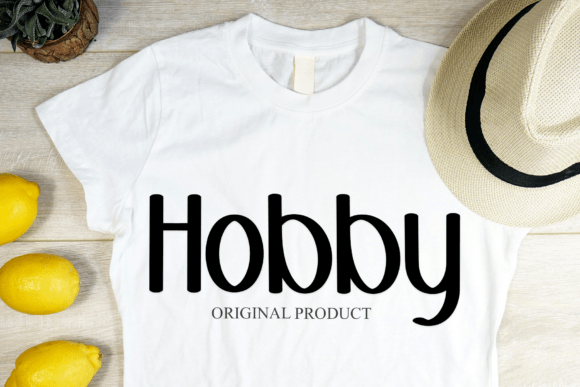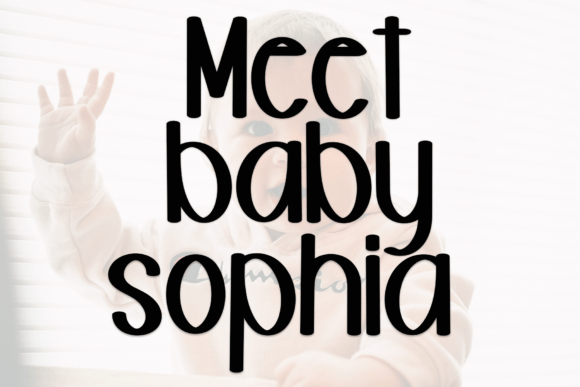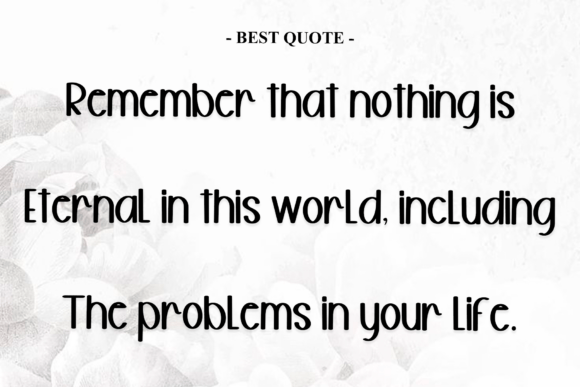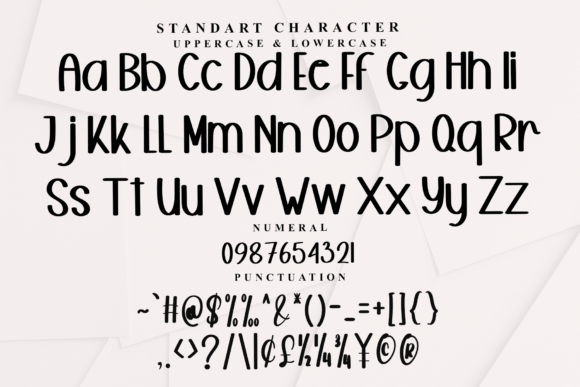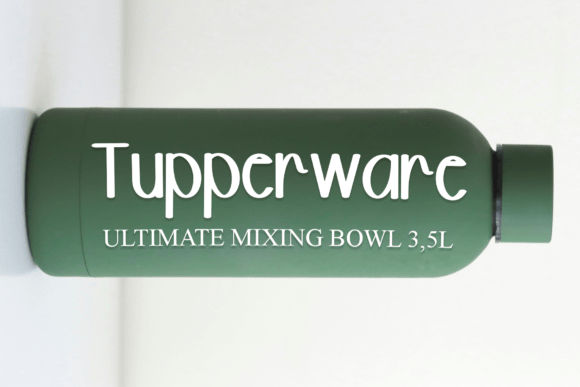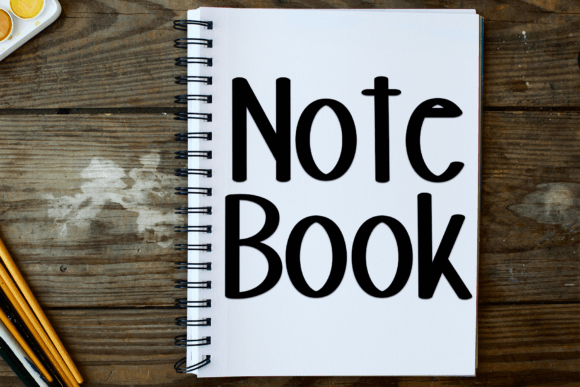
The Boho Rainy Font: A Designer’s New Best Friend
I’ll never forget the time I was working on a design project for a client who wanted a font that was both elegant and quirky. I spent hours scouring the internet for the perfect font, but nothing seemed to fit the bill. That was until I stumbled upon the Boho Rainy font. Its unique, soft touch and distinctive strokes immediately caught my eye, and I knew I had found the one. In this article, I’ll share my experience with the Boho Rainy font, its features, and how to make the most of it in your designs.
- ✨ Unique and eye-catching design
- ✅ Versatile and meaningful character set
- 🎨 Perfect for design projects, crafts, and other creative works
While the Boho Rainy font is amazing, there are a few things to keep in mind:
- ⚠️ Limited availability of language support (but it’s still a great option for English-based designs)
- Experiment with OpenType features, such as glyphs and stylistic alternates, to add more personality to your text
- Take advantage of OpenType features, such as ligatures and stylistic sets, to add more visual interest to your text
The Story Behind Boho Rainy
The Boho Rainy font was designed with the intention of creating a unique, eye-catching typeface that would add a touch of personality to any design project. The designer, inspired by the natural world and the beauty of handmade crafts, set out to create a font that was both elegant and quirky. The result is a font that’s perfect for designers, crafters, and creative hobbyists who want to add a little something special to their work.
| What is the Boho Rainy font best suited for? | The Boho Rainy font is perfect for design projects, crafts, and other creative works, such as logos, branding, and social media graphics. |